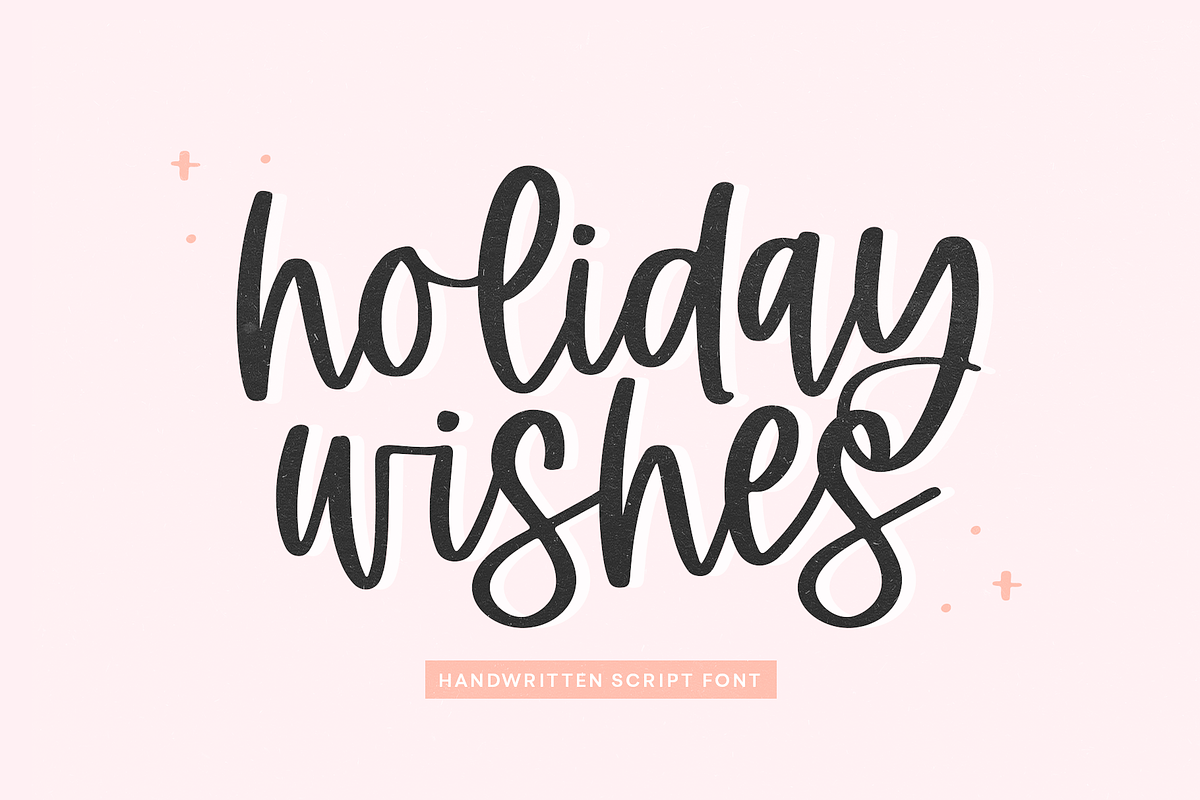
Holiday Wishes – Modern Script Font Free Download
Holiday Wishes – Modern Script Font Free Download is a beautiful, elegant handwritten script typeface that captures the festive, joyful spirit of the holidays. With its smooth, flowing strokes and stylish curves, this font is perfect for holiday greetings, seasonal branding, invitations, greeting cards, and social media content.
Holiday Wishes – Modern Script Font Free Download combines a modern script with a timeless holiday charm, making it ideal for projects that need a warm, personal, and elegant touch during the holiday season.